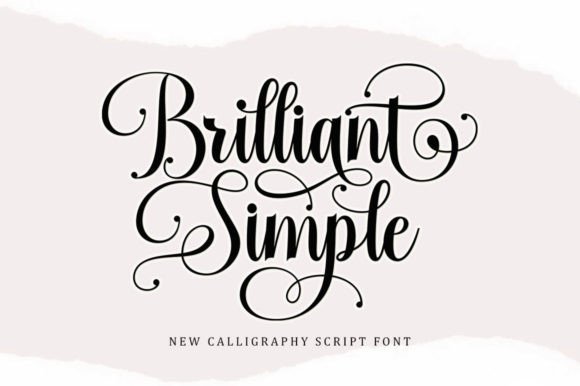
Introducing Brilliant Simple Font: Elevate Your Creative Projects with Elegance
In the realm of typography, a font can make all the difference in transforming a design from ordinary to extraordinary. For those seeking a touch of elegance and uniqueness in their creative projects, the Brilliant Simple Font stands out as a remarkable choice. This beautifully crafted, handwritten font is not only aesthetically pleasing but also packed with features that make it incredibly versatile and user-friendly.
The Essence of Brilliant Simple Font
Brilliant Simple is described as a very beautiful, elegant, and unique handwritten font. Its design embodies a sense of sophistication and refinement, making it suitable for a wide range of applications, from luxury branding and high-end product packaging to elegant wedding invitations and professional portfolios. The font’s unique character ensures that your projects stand out, offering a distinctive look that captures attention and conveys a sense of style.
Unlocking Creative Potential with PUA Encoding
One of the key features that set Brilliant Simple Font apart is its PUA (Private Use Area) encoding. This technical aspect allows users to access a wide range of glyphs and swashes easily, providing immense flexibility in customizing and personalizing their text. PUA encoding ensures that users can explore the full creative potential of the font, making it possible to add unique touches and flair to any design. Whether you’re looking to add a dash of personality to a headline or craft a bespoke message, the PUA encoding of Brilliant Simple Font makes it straightforward to do so.
Elevate Your Creative Ideas
The promise of the Brilliant Simple Font is not just about aesthetics; it’s also about empowerment. This font has the potential to take your creative ideas to the highest level, offering a tool that can turn visions into compelling realities. With Brilliant Simple, designers and creatives can push the boundaries of their projects, experimenting with typography to convey messages more effectively and engagingly. Whether you’re a professional designer or an entrepreneur looking to create a strong brand identity, this font provides the means to elevate your work.
Versatility Across Projects
The versatility of Brilliant Simple Font is one of its most compelling attributes. Its elegant and unique design makes it suitable for a myriad of projects, including:
- Branding and Logotypes: Create memorable and impactful brand identities with a font that exudes elegance and sophistication.
- Wedding and Event Invitations: Add a touch of luxury and personalization to your invitations, making your event unforgettable.
- Packaging Design: Stand out on store shelves with product packaging that boasts a refined and distinctive look.
- Digital and Print Media: Use the font in magazines, blogs, posters, and flyers to add a unique typographic style that captures attention.
Why Choose Brilliant Simple Font?
Choosing Brilliant Simple Font for your projects comes with numerous benefits:
- Unique Aesthetic: Offers a fresh and unique look that differentiates your work from others.
- Ease of Use: Thanks to PUA encoding, accessing and using the various glyphs and swashes is straightforward.
- High Versatility: Suitable for a wide range of projects, from digital to print.
- Support for Creative Freedom: Provides the tools needed to fully express your creative vision.
The Brilliant Simple Font is more than just a typographic choice; it’s a creative partner that can elevate your projects to new heights. Its elegant design, combined with the practical benefits of PUA encoding, makes it an invaluable resource for anyone looking to add a touch of sophistication and uniqueness to their work. Whether you’re a seasoned designer or just starting out, Brilliant Simple Font offers the potential to transform your creative ideas into stunning realities.
Brilliant Simple Font is not just a tool; it’s a gateway to creating visually stunning and uniquely memorable designs. With its elegant appearance and versatile features, it’s poised to become an indispensable part of your creative toolkit.